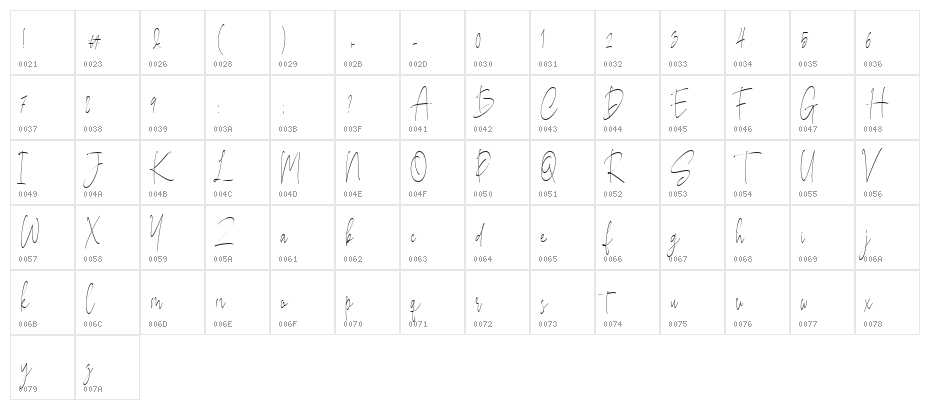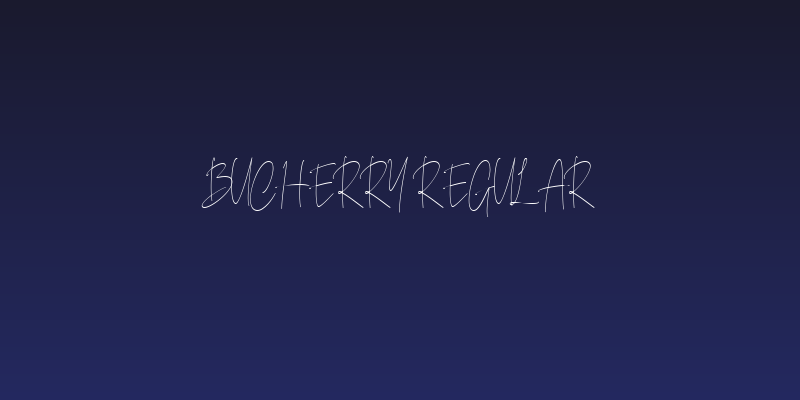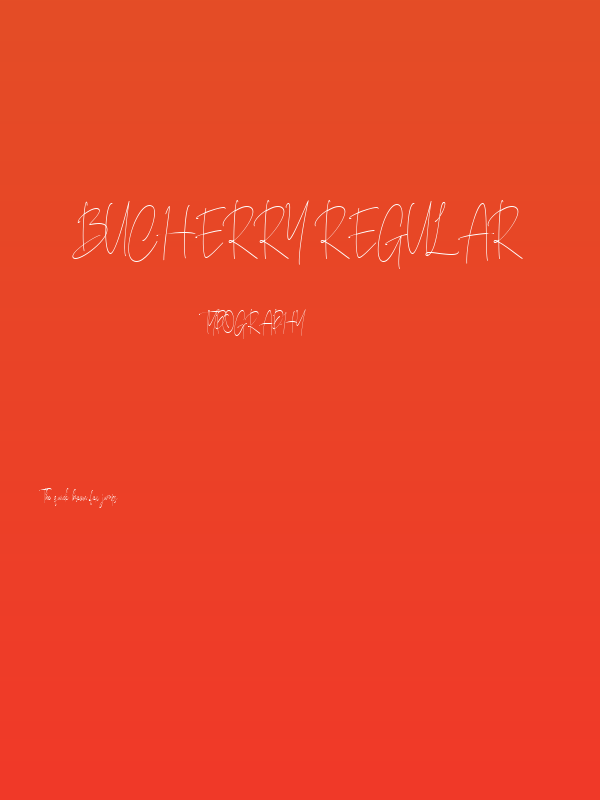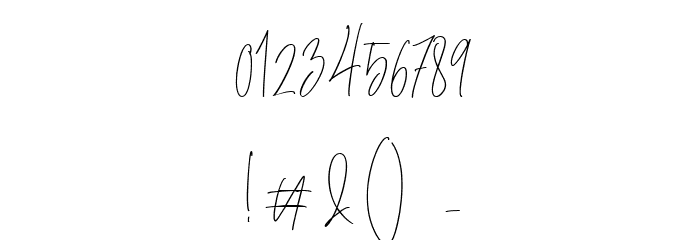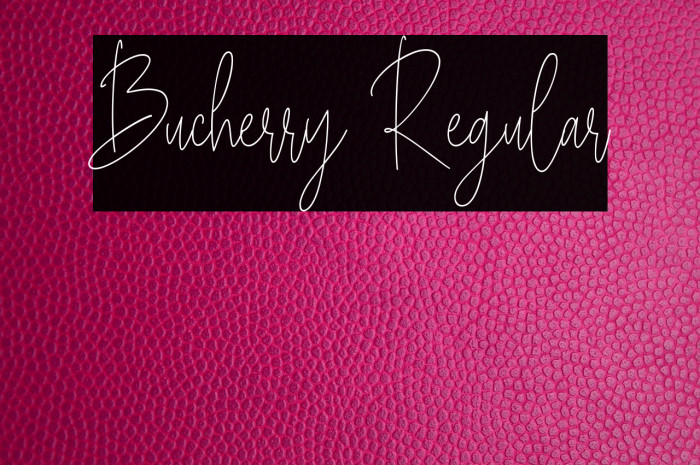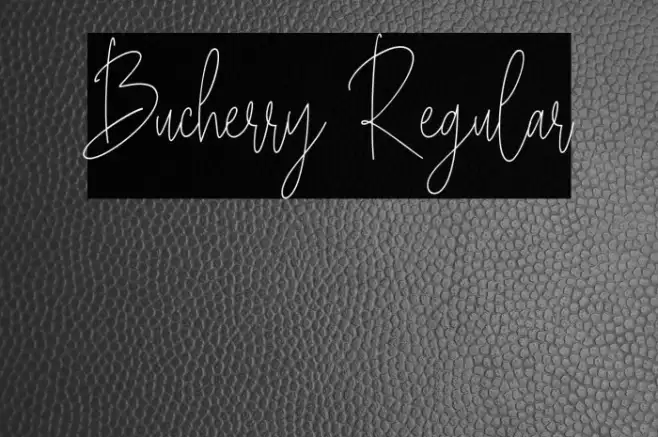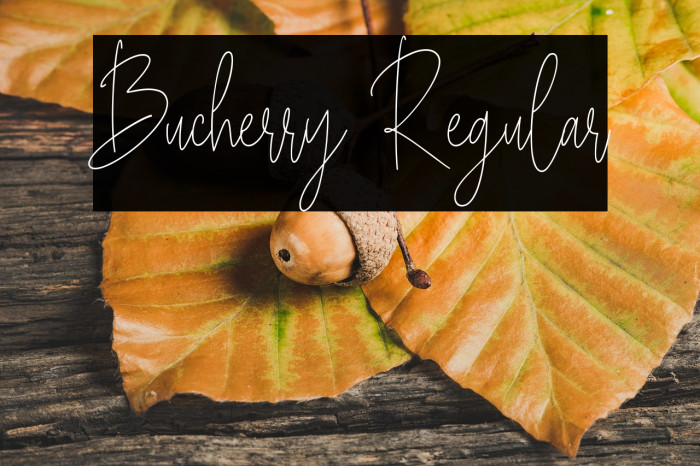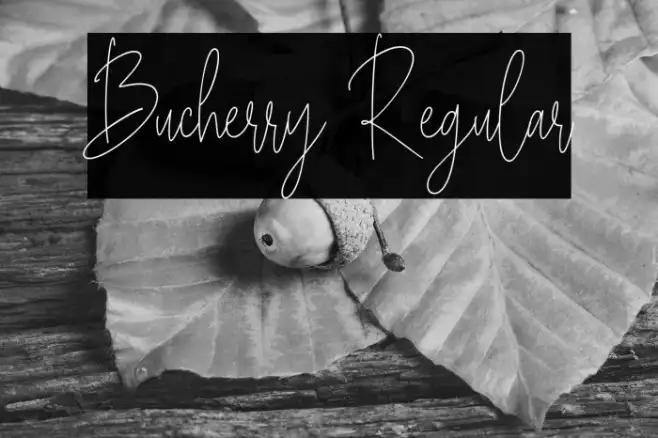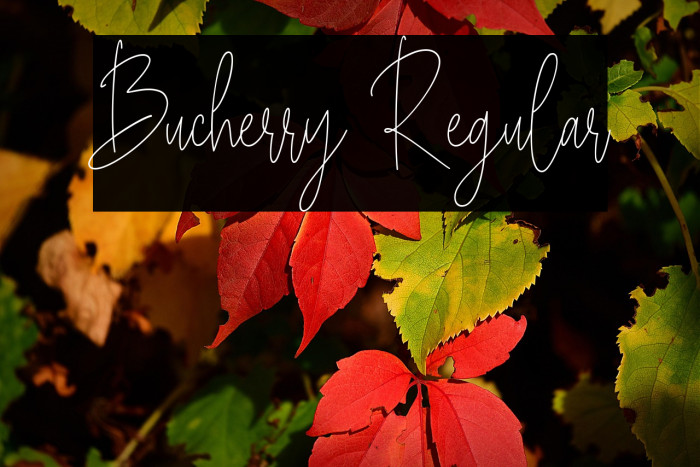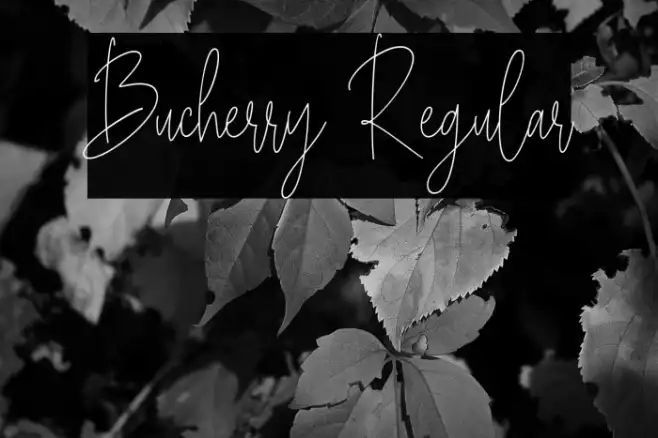
Bucherry Regular Font
Bucherry Regular Description
This font features a delicate, handwritten style with a flowing, cursive appearance. The letters are thin and elongated, giving it an elegant and airy feel. The uppercase characters are slightly more structured, while the lowercase letters maintain a consistent fluidity. The numerals and special characters are designed to match the overall aesthetic, with a subtle artistic flair. This font is ideal for projects that require a personal touch, such as invitations, greeting cards, or branding materials that aim to convey sophistication and creativity.
| Proposed Projects | Ideal for invitations, greeting cards, personal branding, and creative projects. |